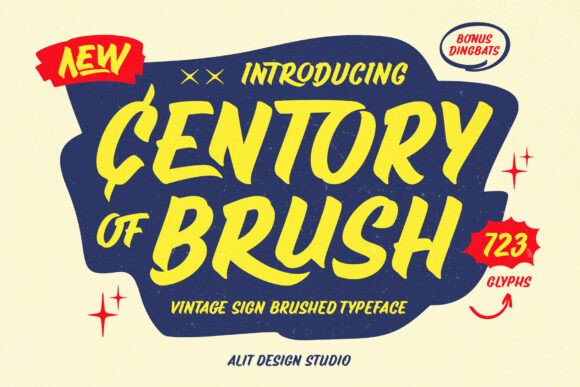
Century of Brush
Finding the right design elements can be challenging, but Century of Brush offers an exceptional collection that elevates your work instantly.
Whether you are creating POD (Print on Demand) products, wedding invitations, or social media graphics, Century of Brush is an ideal fit.